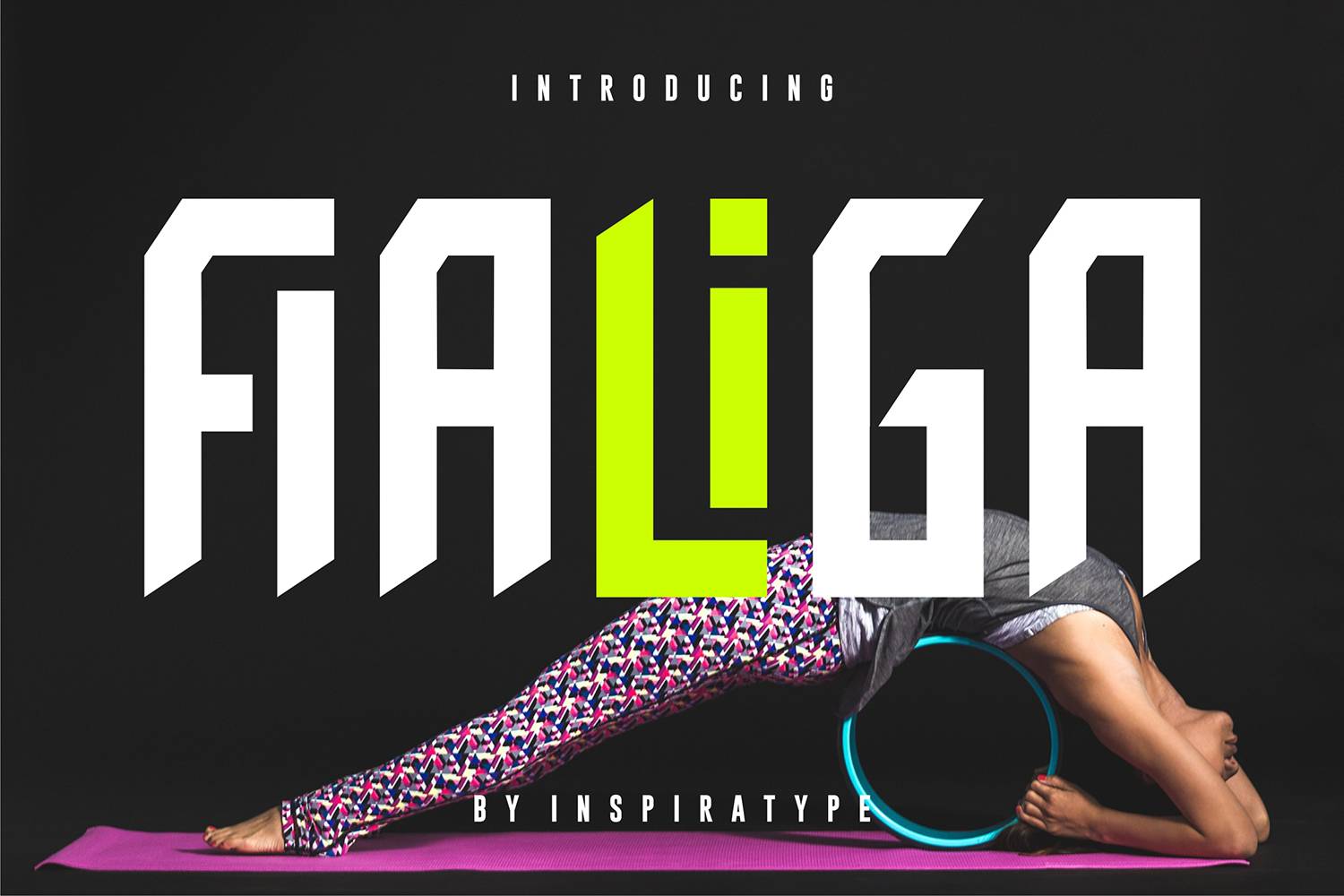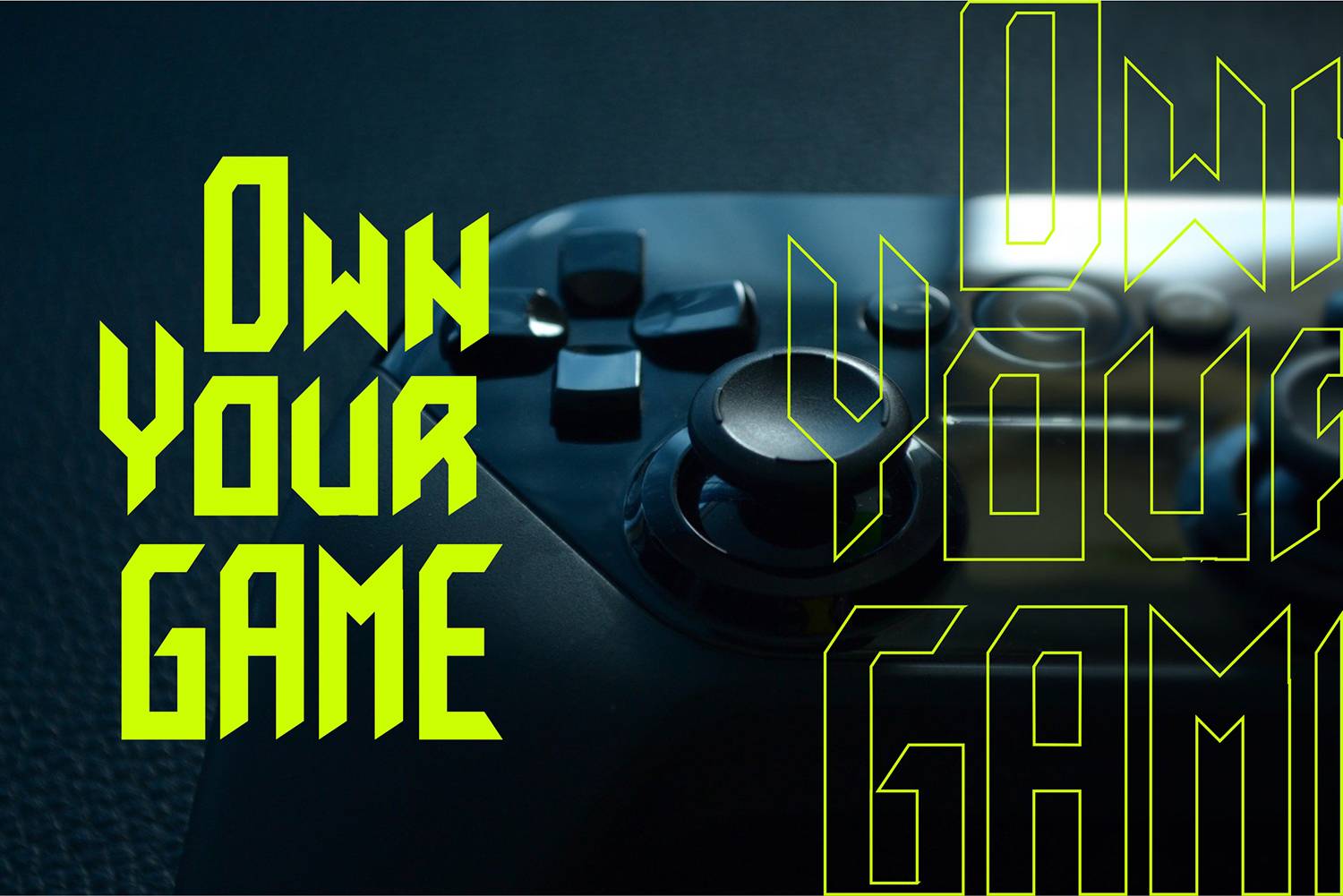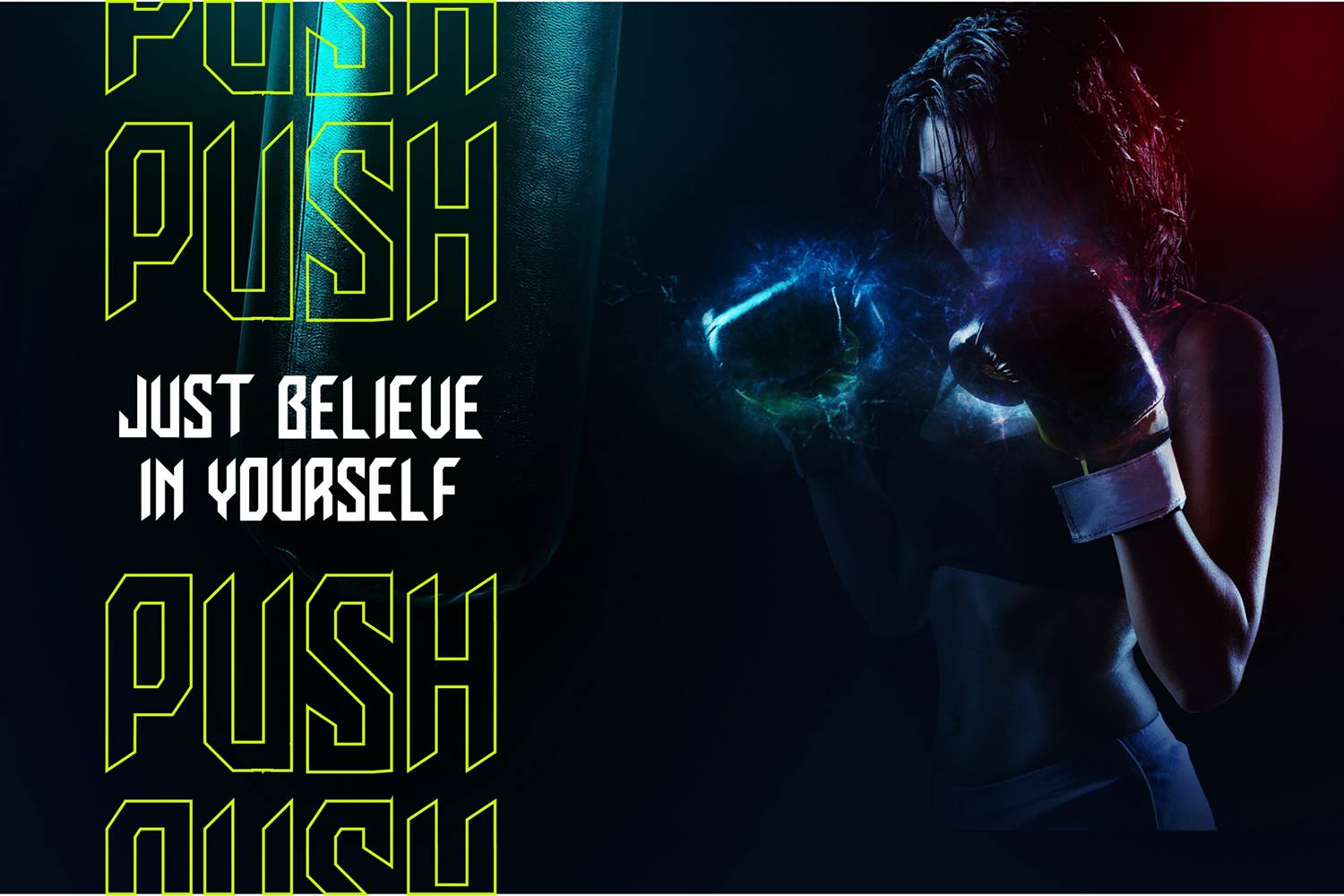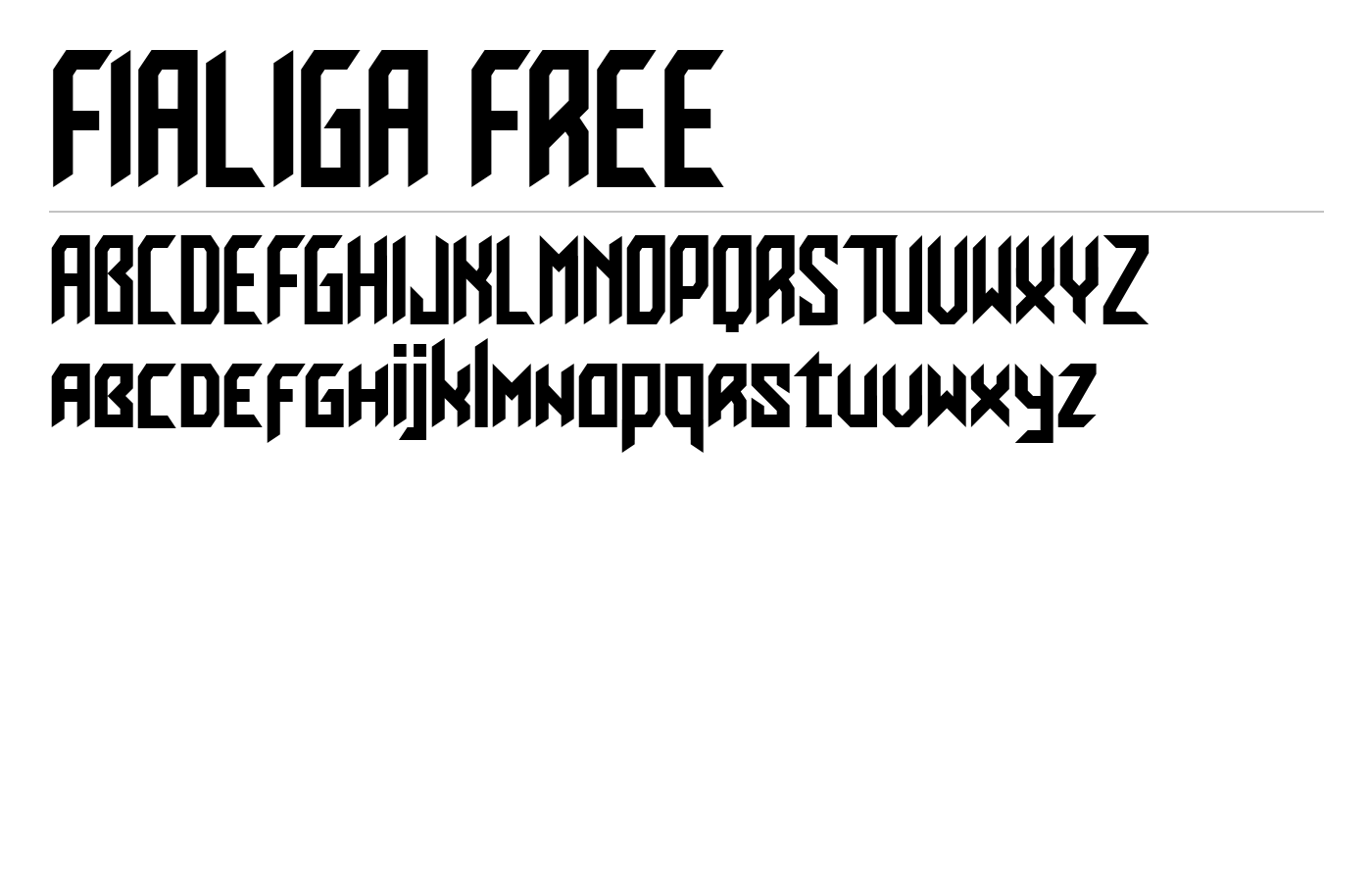
Fialiga is a bold, condensed sans serif font with sharp, angular strokes that create a striking, modern look. Its high x-height and geometric forms give it a strong, edgy personality, making it ideal for attention-grabbing headlines, logos, and posters where a futuristic or industrial vibe is desired. This font works best in display settings where its unique letter shapes can stand out and convey confidence and power.
Fialiga Font
About Fialiga Font
| Font family | Fialiga Font |
| Designer | Inspiratype |